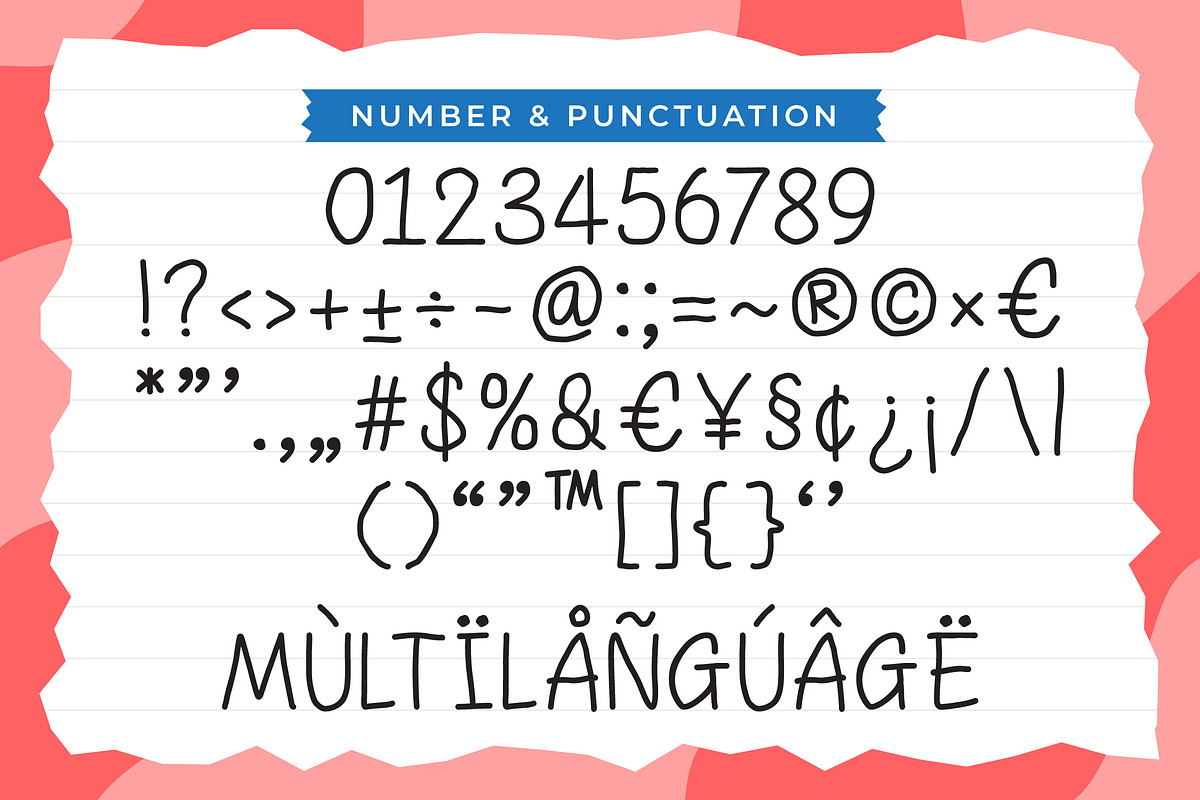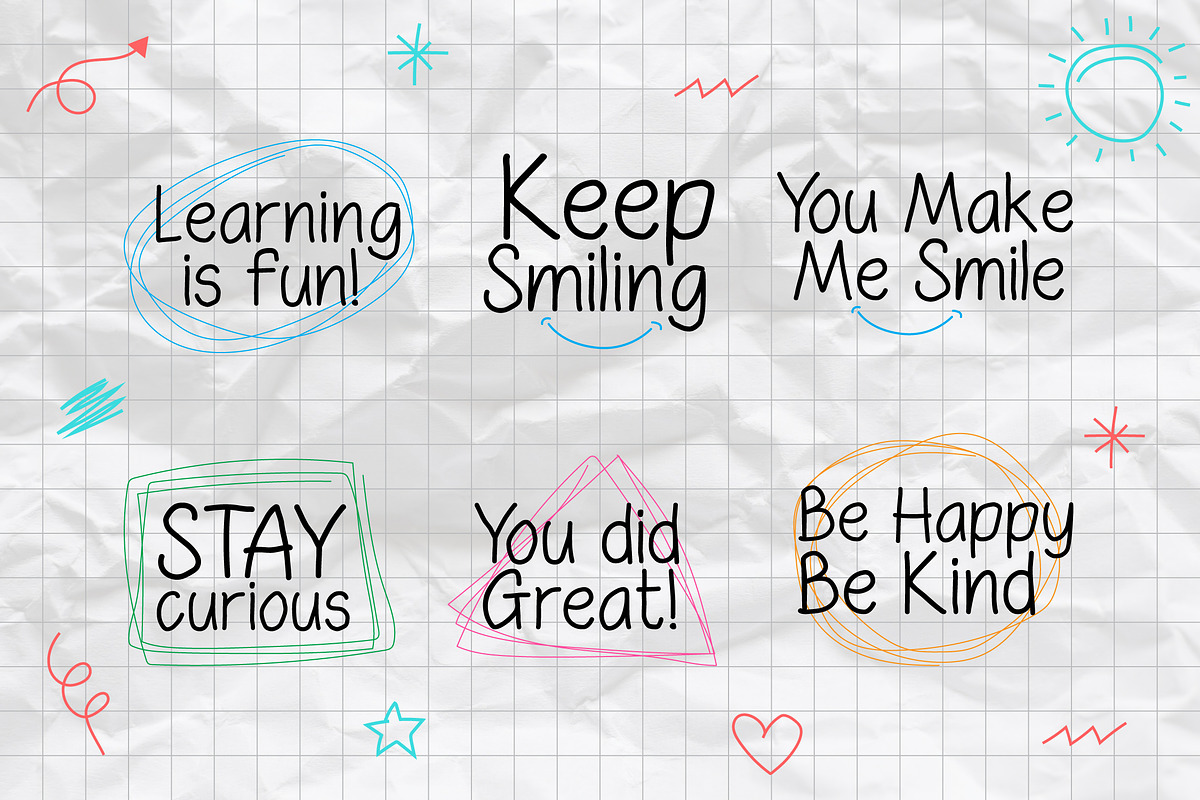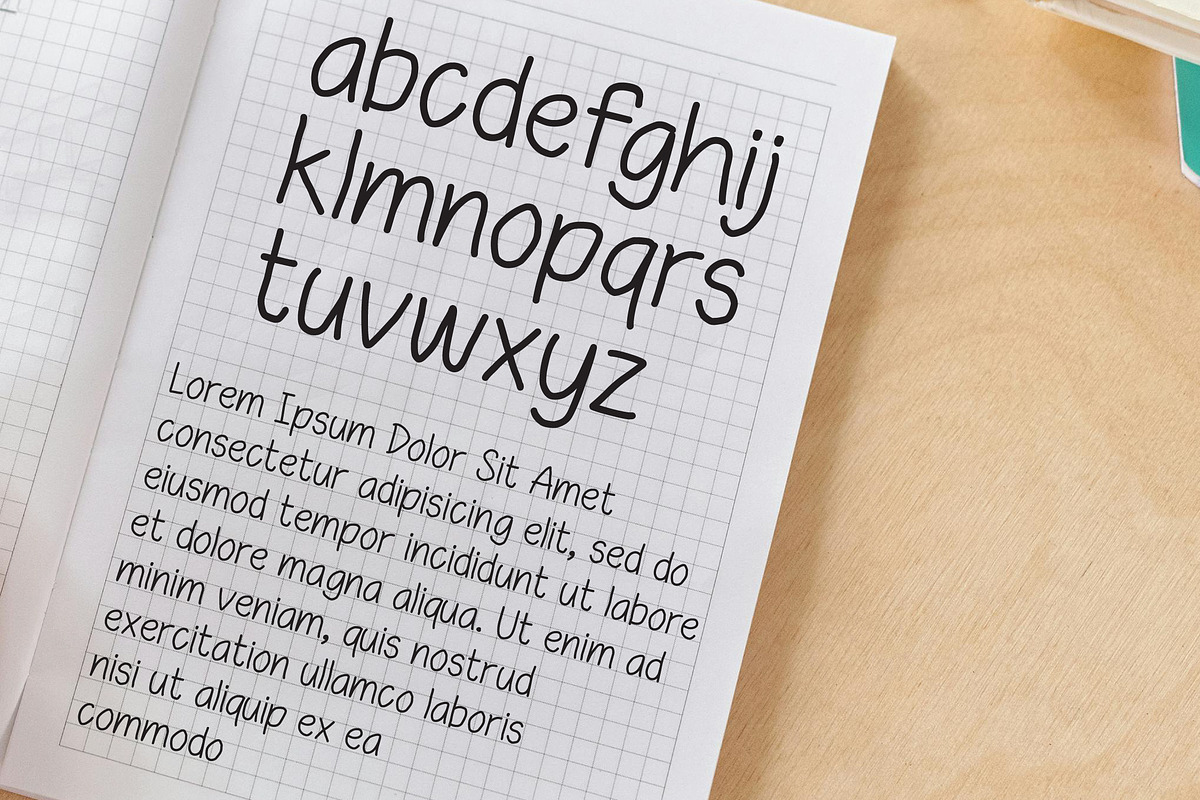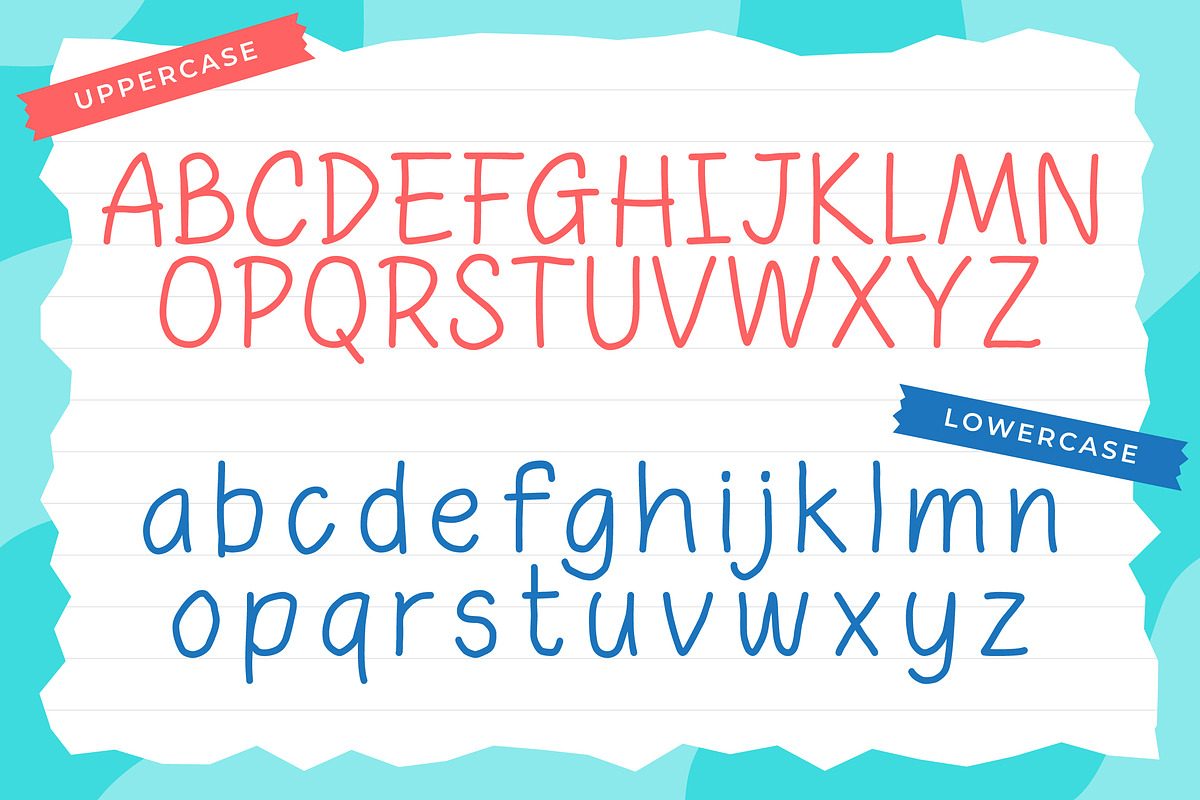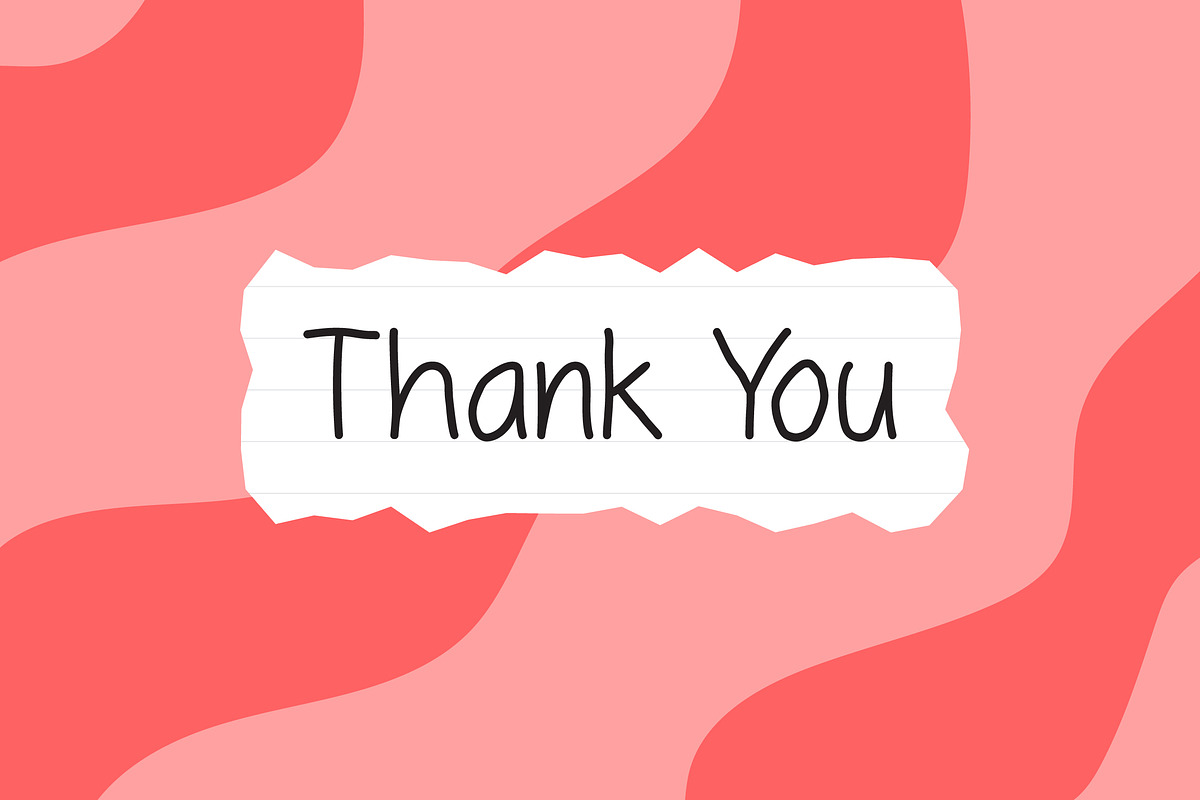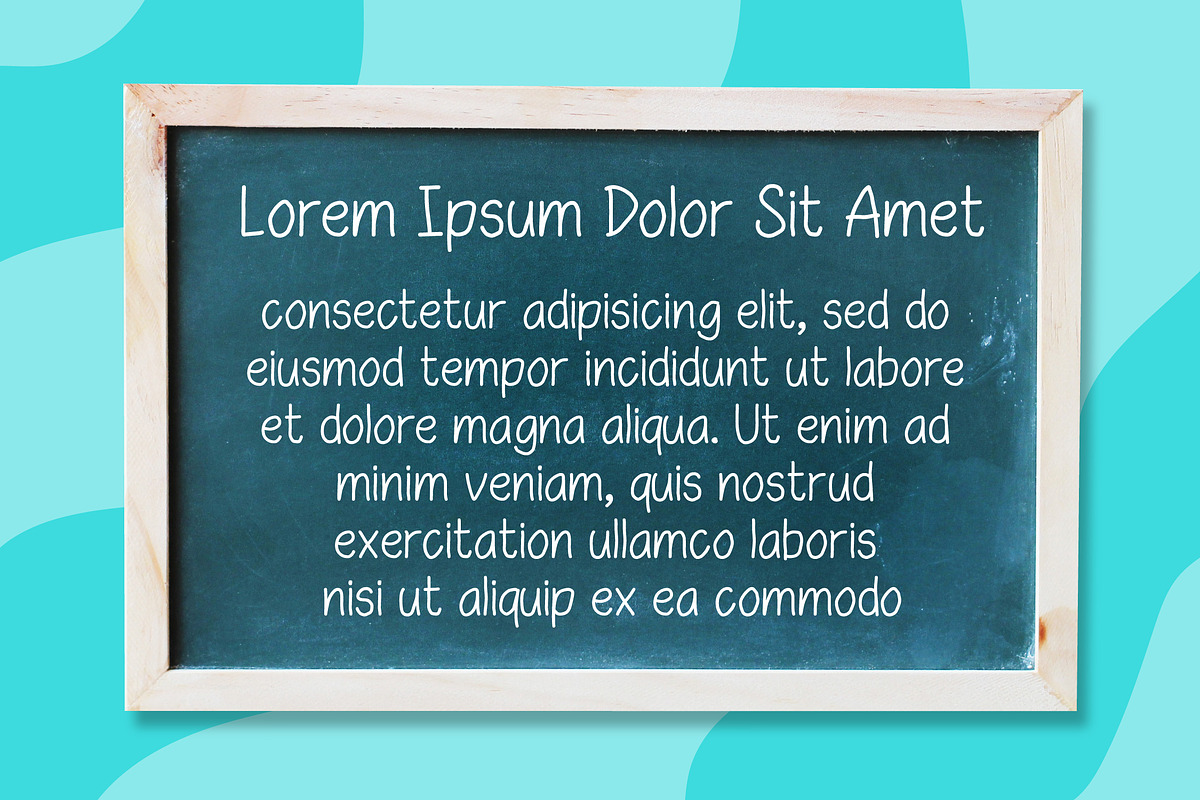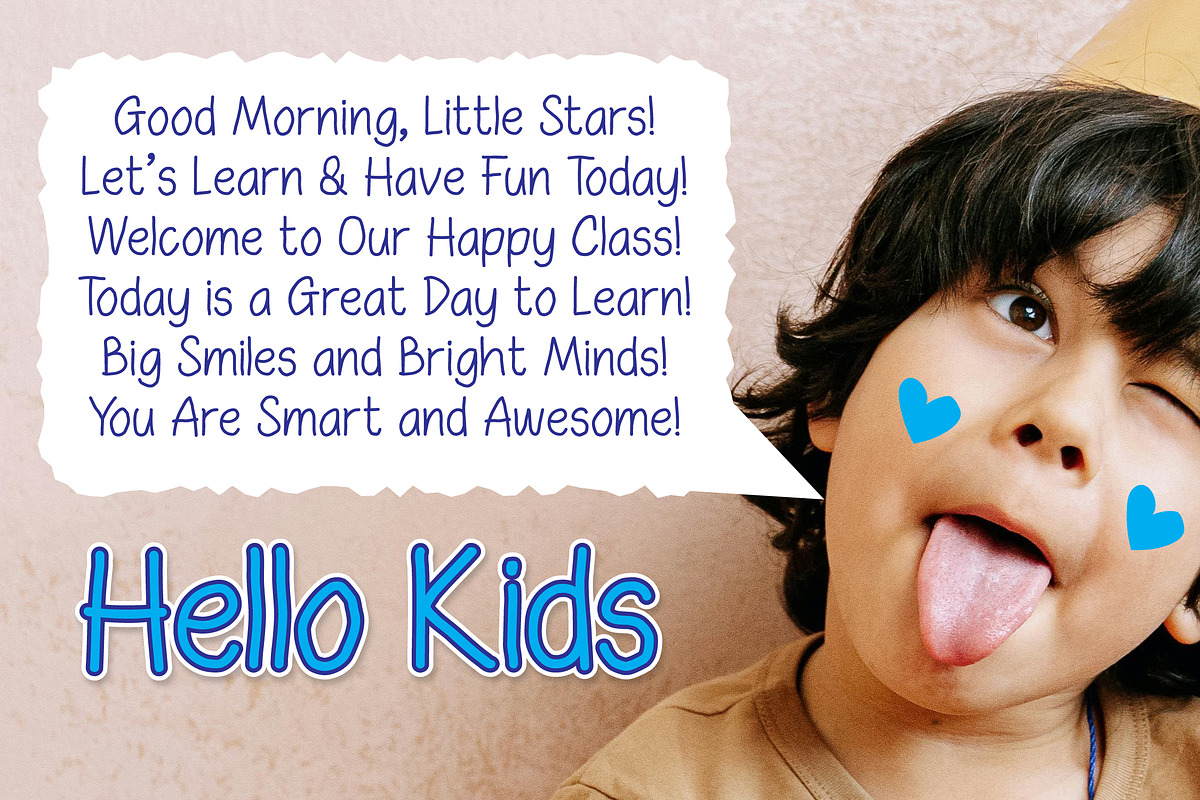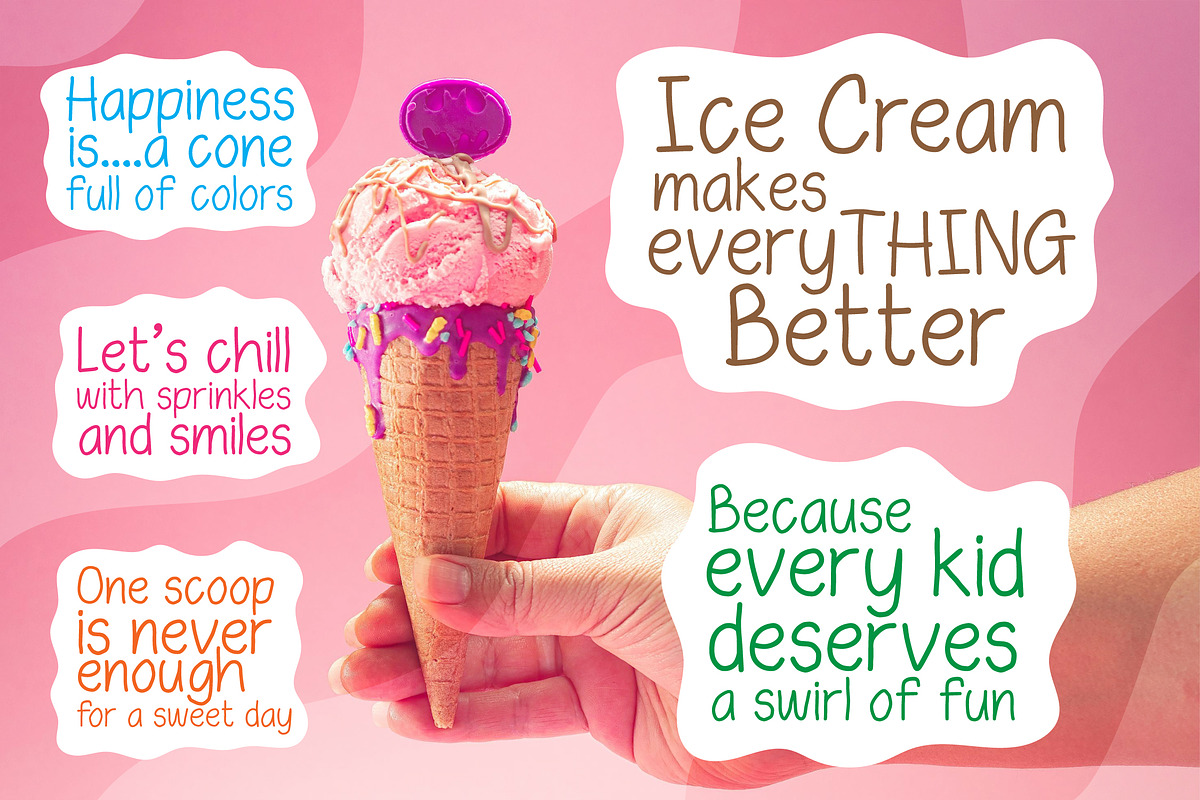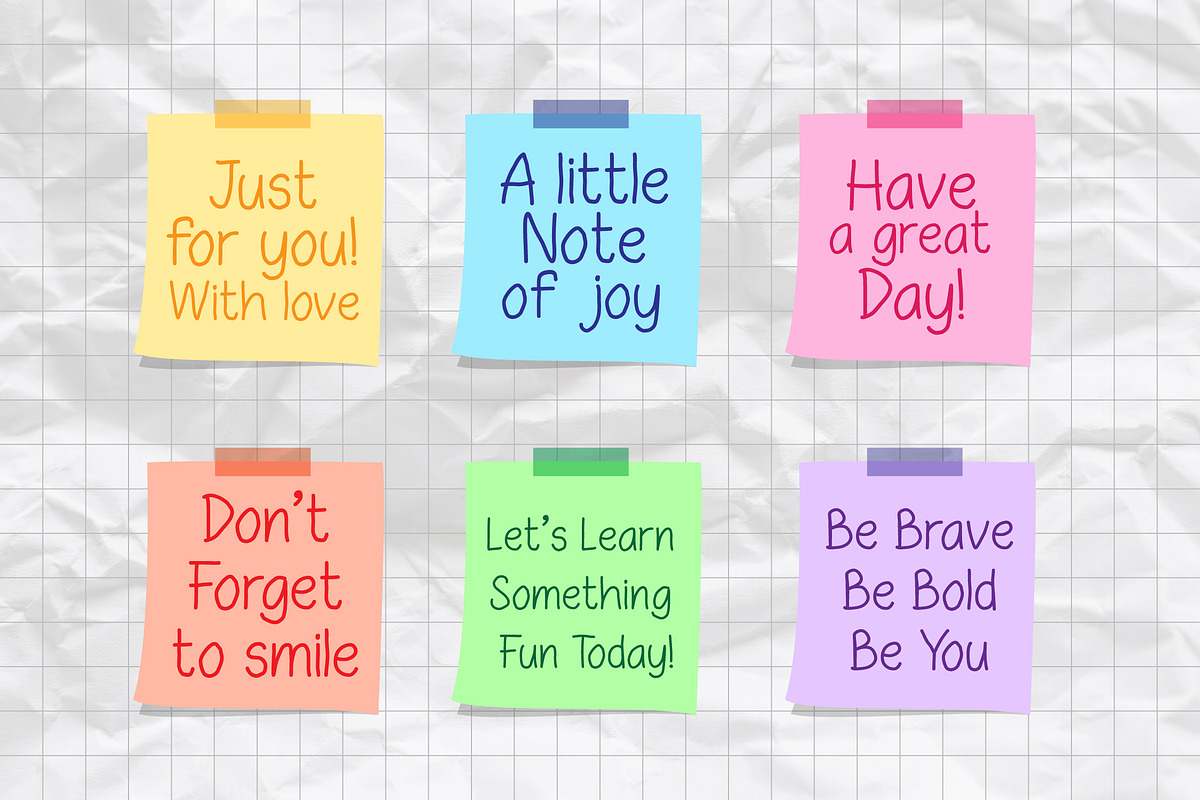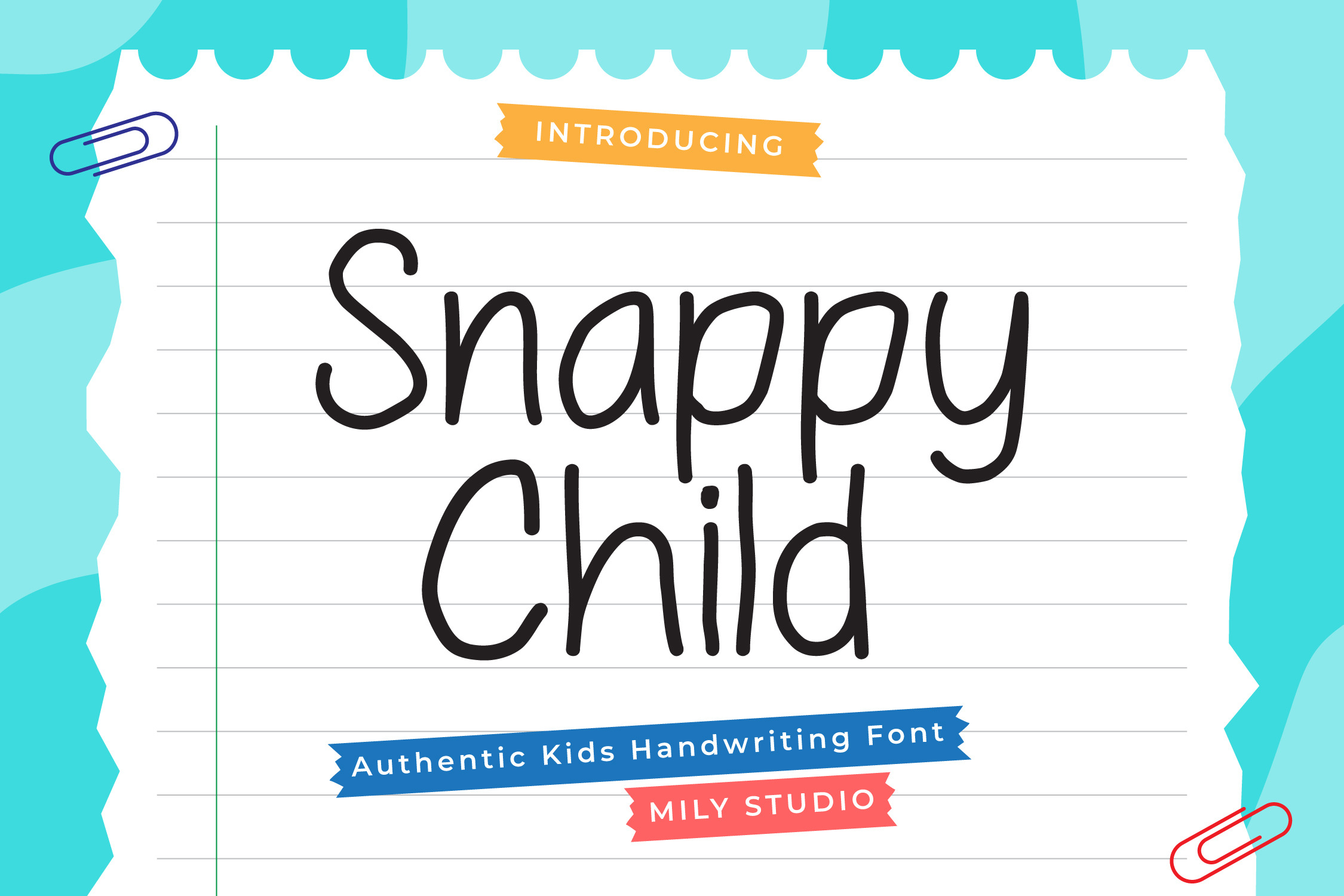
Snappy Child – Kids Handwriting Font
Say hello to Snappy Child – a fun, cheerful font crafted from real kids’ handwriting! This typeface captures the natural charm, imperfect shapes, and spontaneous feel of a child’s scribble. Each letter was inspired by genuine hand-drawn strokes, giving your design a playful and heartwarming touch.
Whether you're designing for children’s books, toys, school projects, or branding for kid-focused products, Snappy Child brings authenticity and joyful energy to every word.
Let Snappy Child brighten your design with the innocence, creativity, and fun spirit of real childhood handwriting!
- Multilanguage